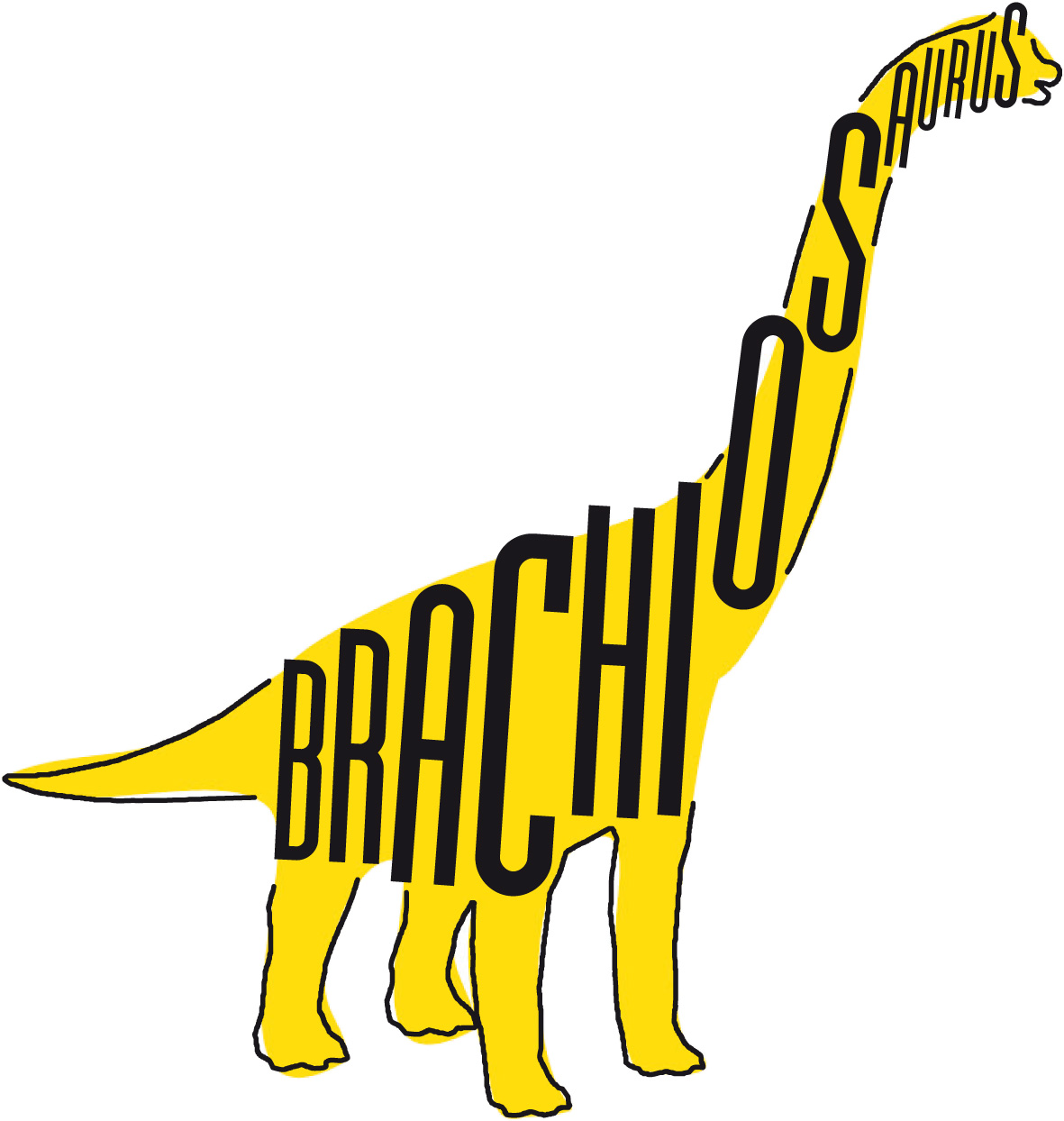
Fontosaur: When dinosaur fonts roamed the Earth
A colouring book written and illustrated by Sarah Hyndman
This is the first in a new series of books that combine dinosaurs with fonts. It began when Sarah’s 12-year-old nephew Eddie had the brilliant idea to make the faces of animals like cat, dog, cow, pig and T-Rex out of the letters of their name. Sarah and Eddie are now working on a collaborative sequel together.
Typographic animal sketches by Eddie Shelton (dog, cat, T-Rex and pig).
The idea to make a typographic book just about dinosaurs came about when a friend’s three-year-old son Blake unwrapped Sarah’s The Night the Fonts… books at Christmas and was disappointed because he really, really wanted a book about dinosaurs. Sarah says “I felt very sad that he was disappointed by the books even though they were full of farting and burping fonts and so I took up the challenge to make a book that he would love”.
The result is Fontosaur: When dinosaur fonts roamed the Earth, which is a book crammed full of dinosaurs reimagined as different fonts. Children will have fun learning to recognise letters in different shapes and sizes. They will learn how to spell out the names of their favourite dinosaurs while they colour them in. The book contains 50 fontosaurs to colour in along with activity sheets of fontosaurs to cut out, colour and stick onto a prehistoric landscape.
Better known for her work for adults, why did Sarah write a book about fonts for children?
“I think this is a wonderful age to write for because it’s when children are learning to read, so my children’s books are designed to start a conversation between the child and the grown-up reading with them. I find that children are excited about fonts and different lettering styles because their books are already so typographically expressive. From comic books to cartoons, this is a visual language they’re already very familiar with. My books put the spotlight on the typefaces, making both children and the grown-ups who read with them more aware of the fantastical world of fonts”.
Update: three-year-old Blake does now enjoy The Night the Fonts Farted book and thinks that his parents reading to him about farting fonts is very funny.